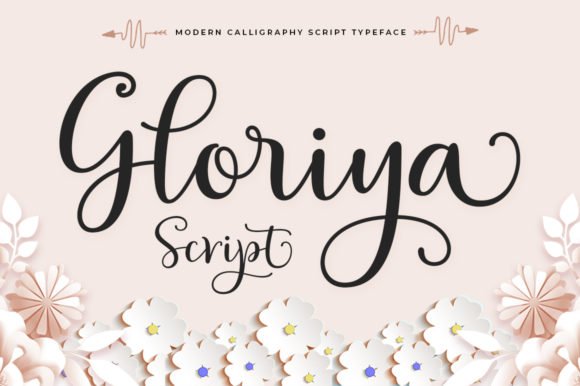
Discover the Magic of Hand-Drawn Typography
Do you remember that moment when you stumbled upon the perfect font for your project, and everything just clicked? For many designers, that ‘aha’ moment is a game-changer. It’s the difference between a good design and a great one. For me, that moment came when I found the Gloriya Font – a sweet, soft hand-lettered script font that brings a touch of authenticity to any project.
Whether you’re crafting wedding invitations, designing beautiful stationary art, or creating eye-catching social media posts, Gloriya Font is the perfect companion. Its PUA encoding allows for easy access to cute glyphs and swashes, while its special features, including alternate glyphs and ligatures, add a whole new level of versatility to your designs. As a designer, you’ll appreciate the value of having a font that can elevate your work and make it truly stand out.
- Unique Characteristics: Gloriya Font features a unique blend of modern and traditional design elements, with subtle flair and elegance, making it perfect for high-end branding and design projects.
Gloriya Font Review
Gloriya Font has some nice qualities that make it a solid choice for certain projects. ✨ The font’s elegant and refined feel works well for luxury or high-end branding, and the varied weights and styles offer a good range of options for designers.
The font’s legibility is also a strong point, making it suitable for body text or longer passages of content. ✨ Additionally, Gloriya Font is highly customizable, with features like ligatures and swashes that can add a touch of sophistication to a design.
While Gloriya Font has its strengths, there are some limitations to consider. ⚠️ One of the main drawbacks is the font’s relatively limited character set, which may not be suitable for projects that require a wide range of languages or special characters.
- ⚠️ Limited character set may not be suitable for multilingual projects
- ⚠️ Font may not be optimized for certain screen resolutions or devices
Gloriya Font is a solid choice for designers looking for a high-end, elegant font. While it has some limitations, the font’s strengths make it a great option for luxury branding or other projects where a refined, sophisticated feel is desired.
Tips for Getting the Most Out of Gloriya Font
Use Gloriya Font for headings, titles, and emphasis in your designs.
Experiment with different font sizes and styles to create visual hierarchy.
Pair Gloriya Font with other fonts for a unique and stylish look.
Use Gloriya Font for:
Headings and titles in brochures, flyers, and posters.
Emphasis in articles, blog posts, and social media content.
Branding and logo design for a unique and stylish look.
Alternatives to Gloriya Font
Playfair Display is a luxurious and elegant serif font, perfect for creating a high-end and sophisticated look. It’s ideal for use in magazine titles, wedding invitations, and other applications where you want to convey a sense of luxury and refinement.
Playfair Display is more formal and traditional compared to Gloriya Font, which is more modern and versatile. While Gloriya Font is great for a wide range of applications, Playfair Display is best suited for formal and high-end designs.
What is the recommended font size for optimal readability with Gloriya Font?
The recommended font size for optimal readability with Gloriya Font is between 12 and 18 points, depending on the intended use and display resolution. For body text, 14-16 points is a good starting point, while headings and titles can be set to 18-24 points or larger.